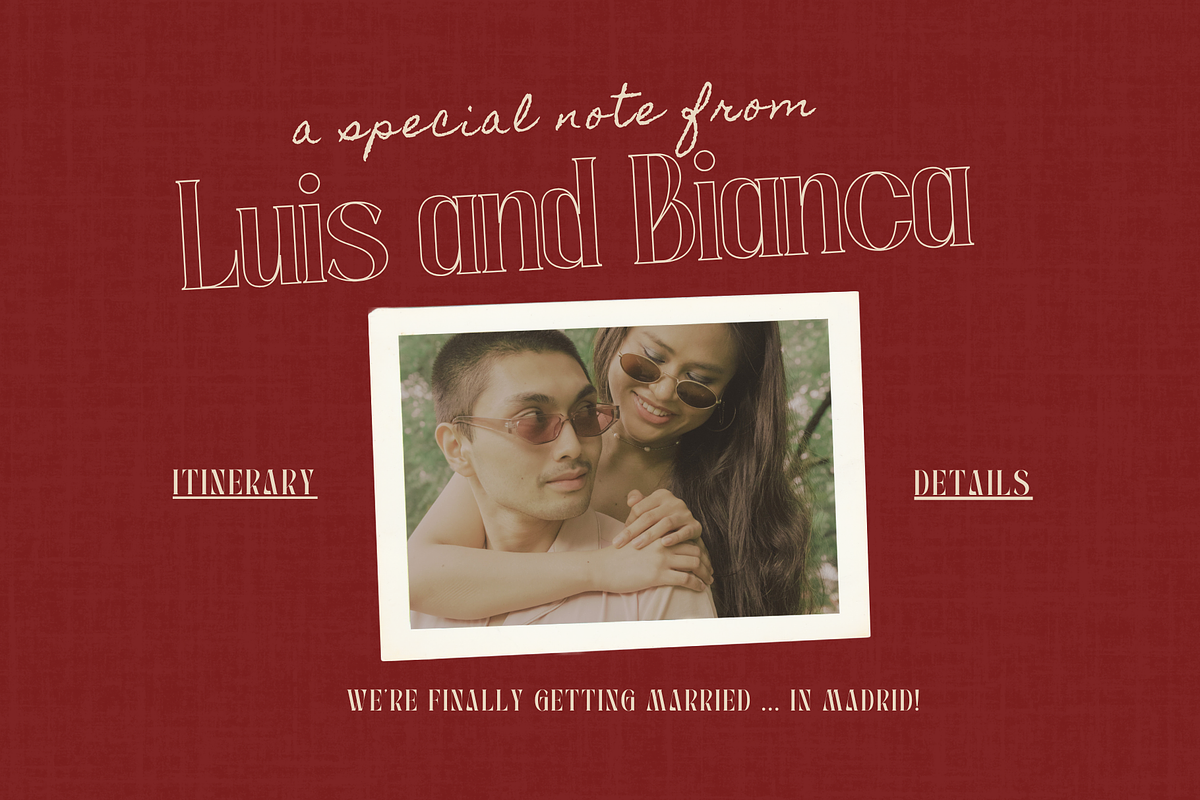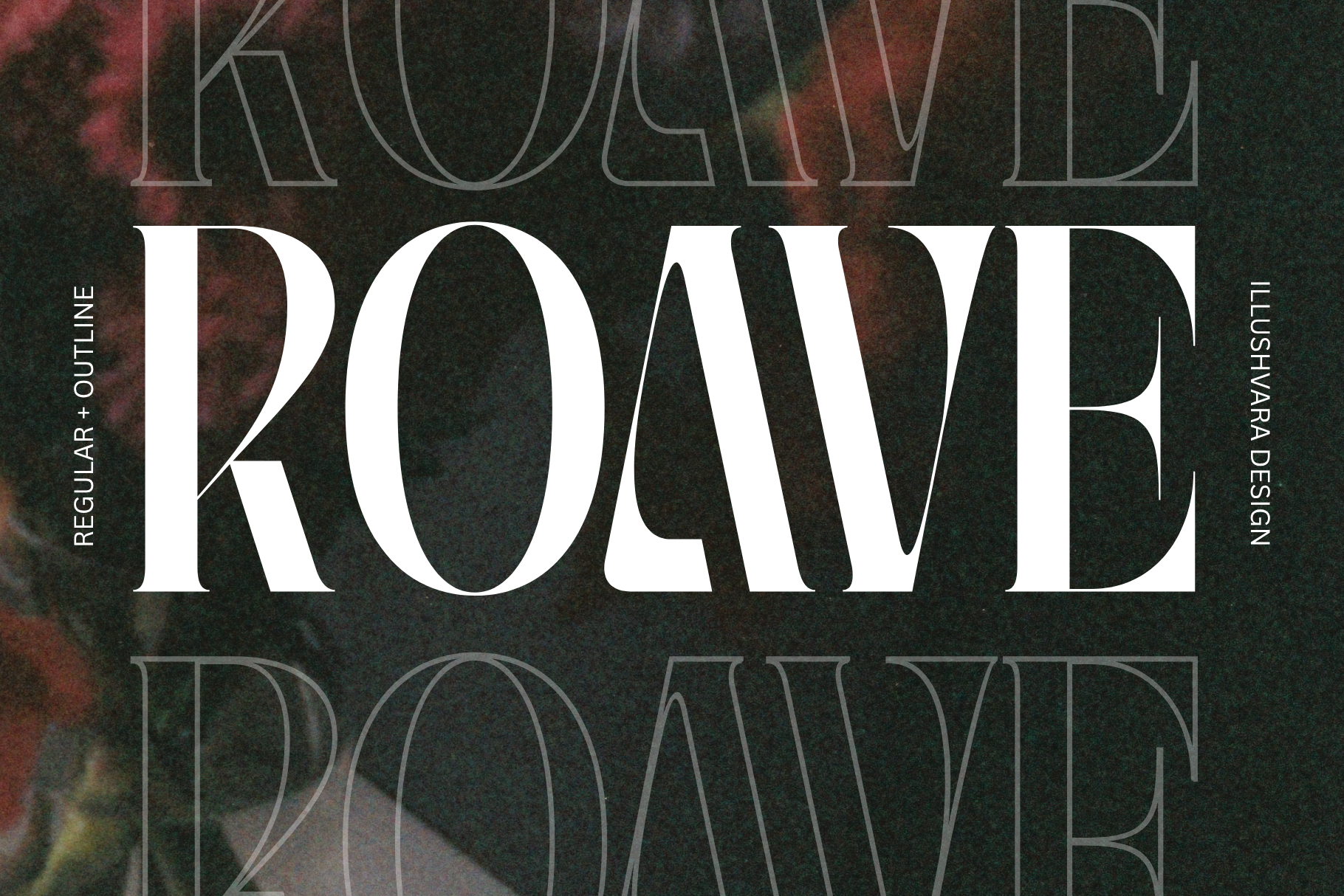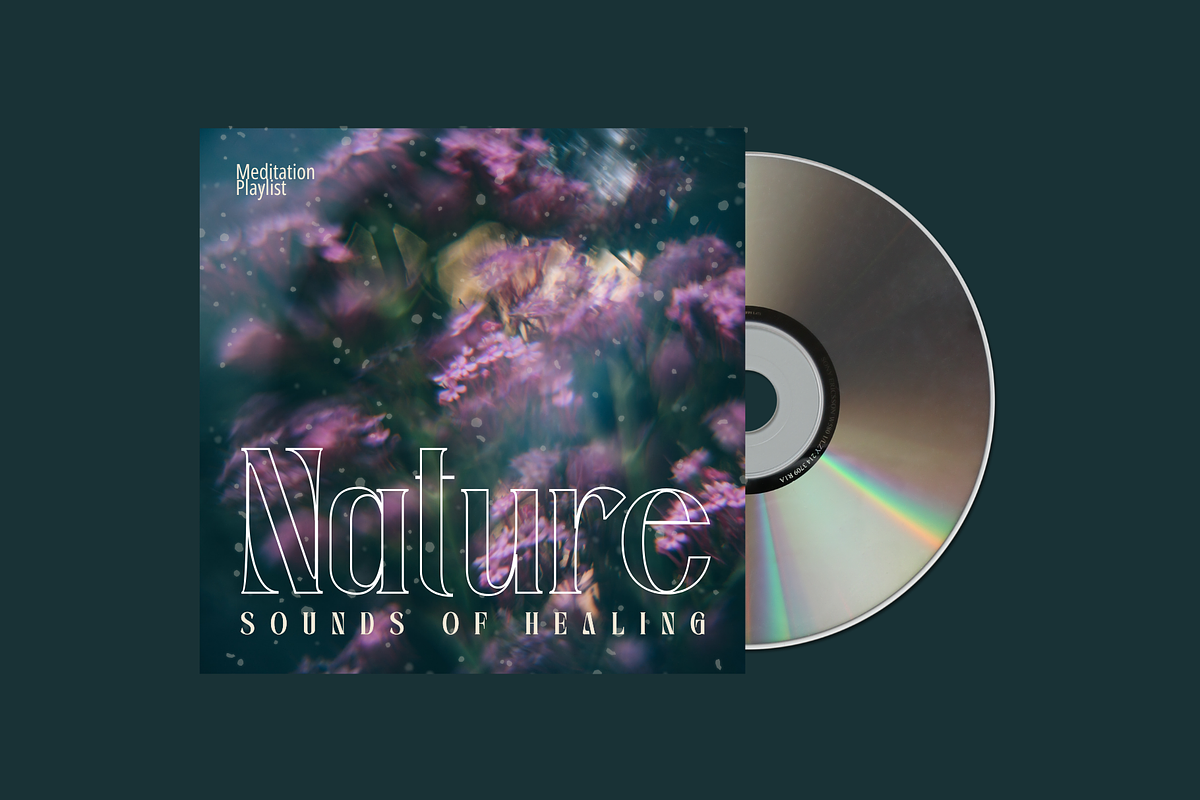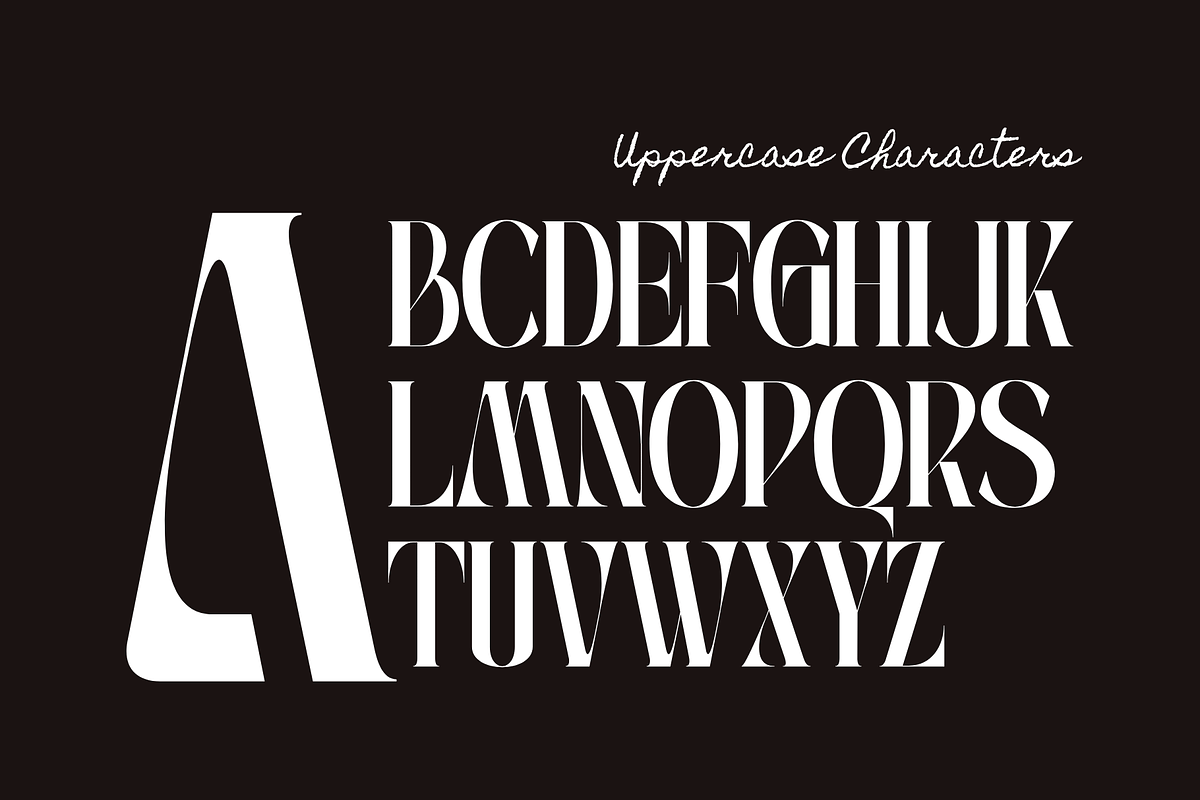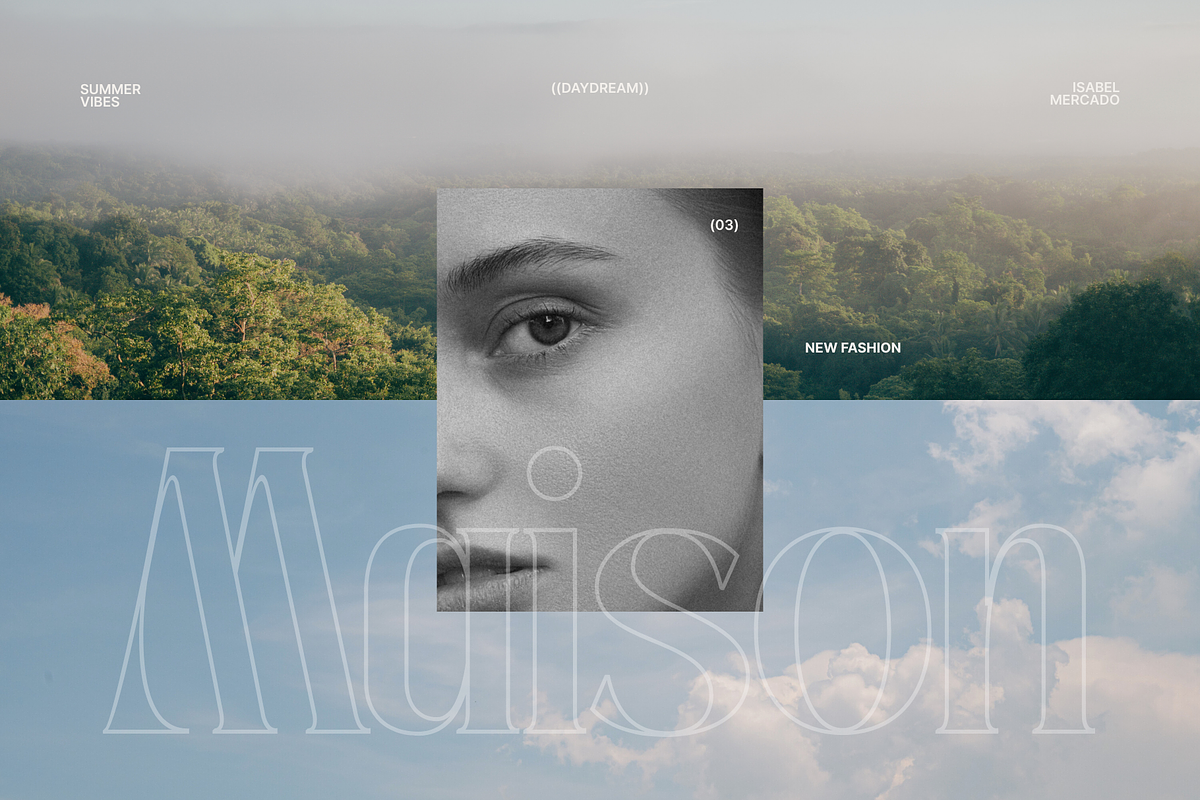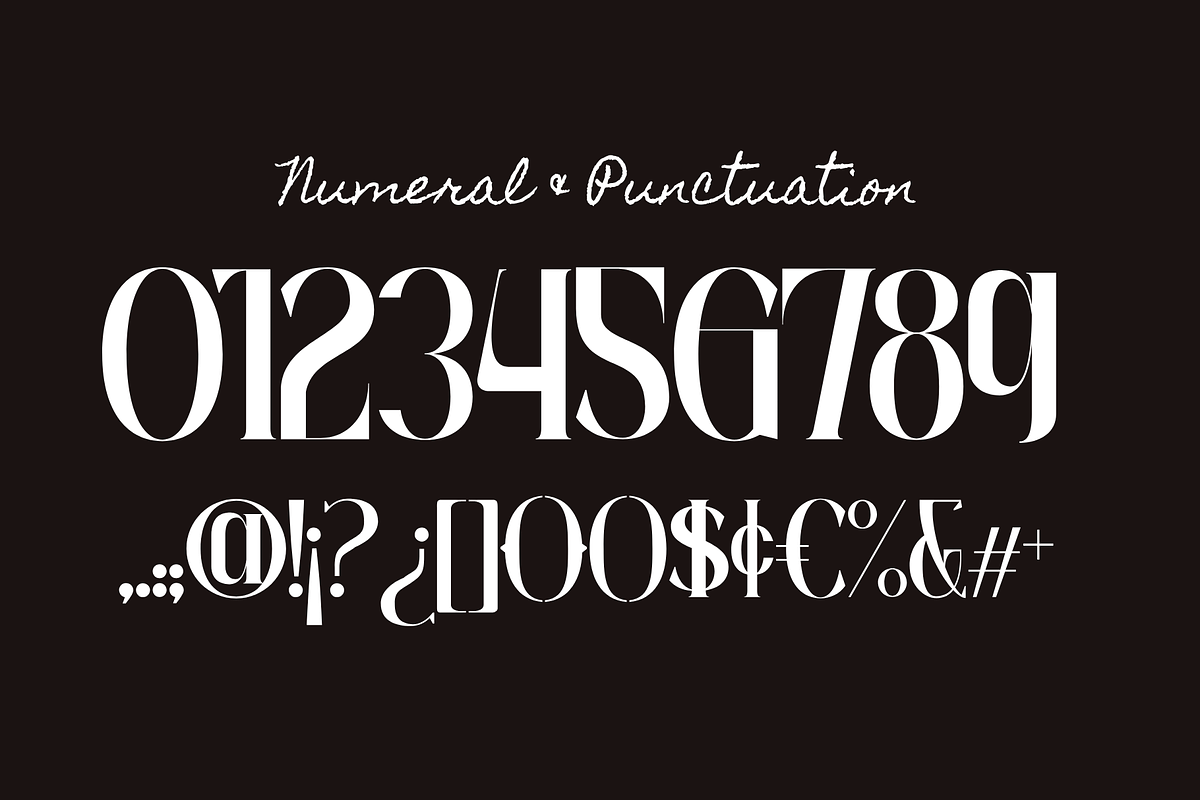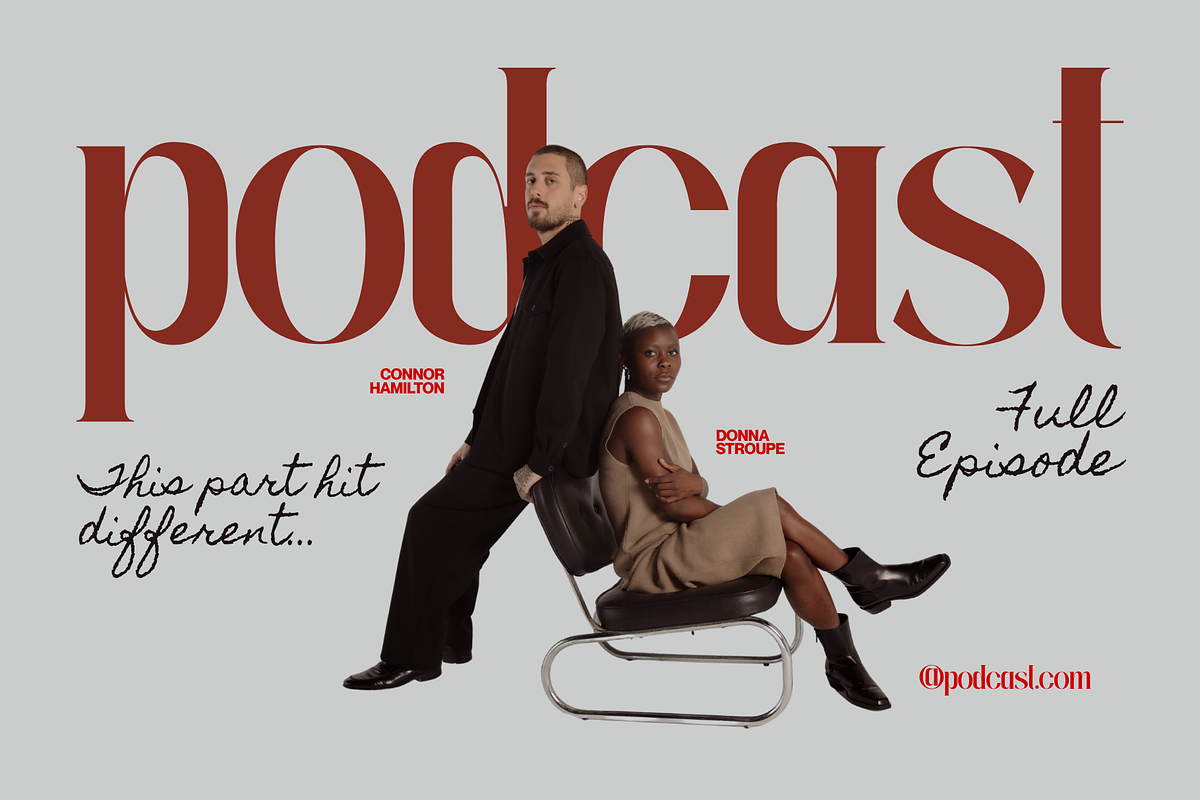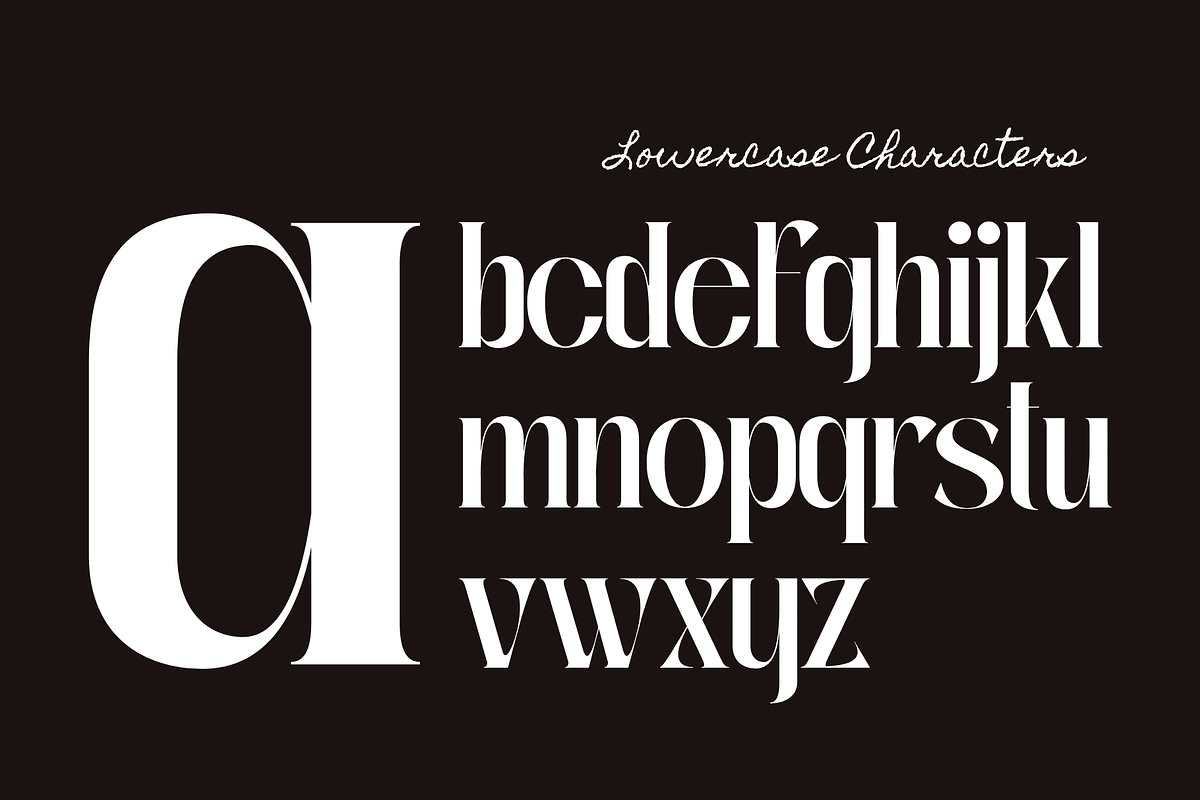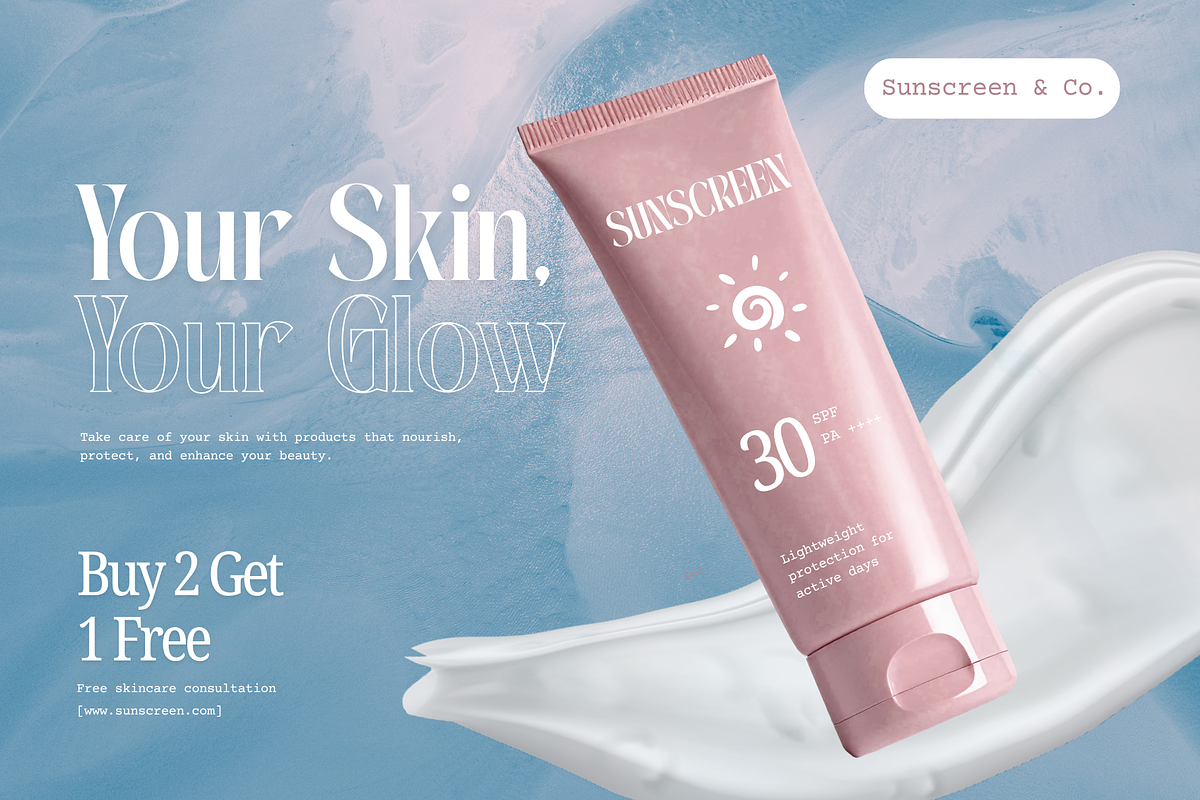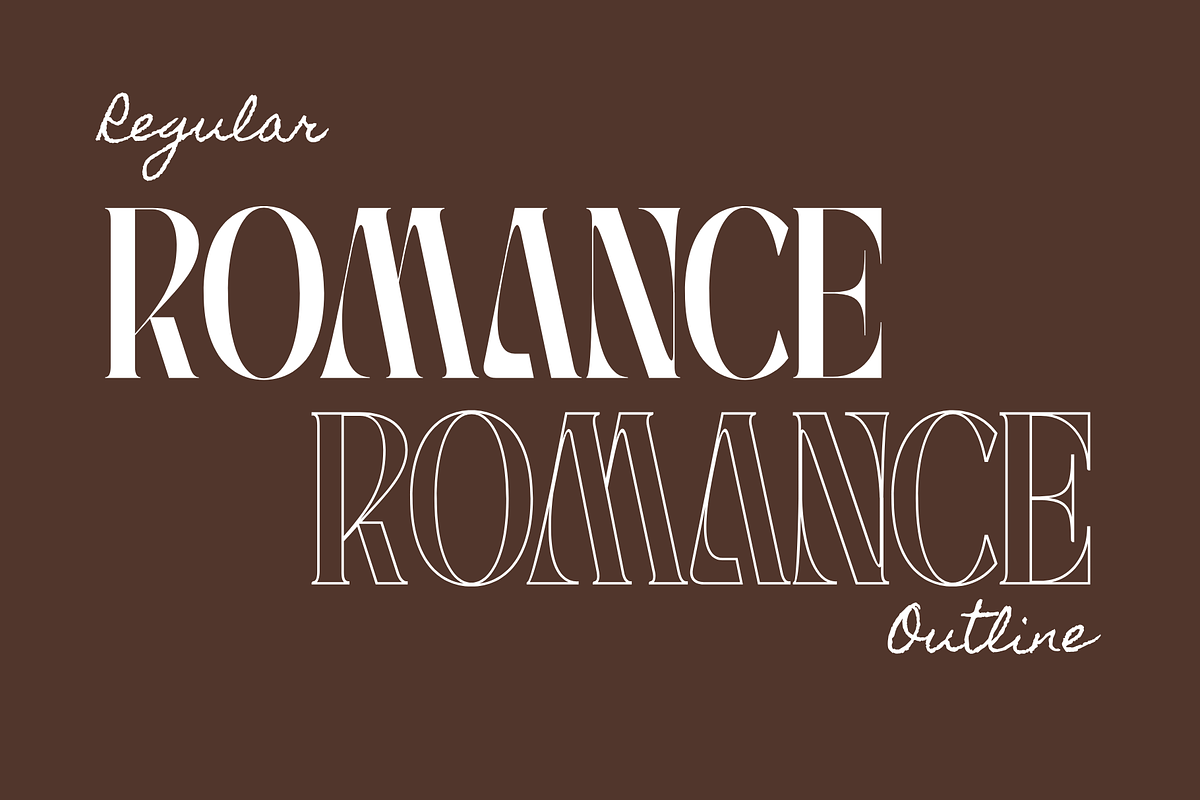
Roave - Modern Elegant Serif Font
Roave is a modern elegant serif font crafted to bring timeless sophistication to your creative projects. Featuring Regular and Outline styles, Roave delivers a refined balance of luxury and contemporary design. Perfect for fashion branding, beauty products, editorial layouts, wedding invitations, logos, packaging, social media, magazines, and premium marketing materials. With its graceful letterforms and stylish presence, Roave helps create memorable, high-end designs that stand out with elegance and professionalism.